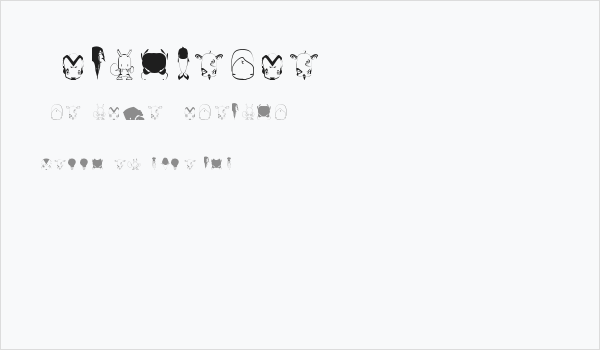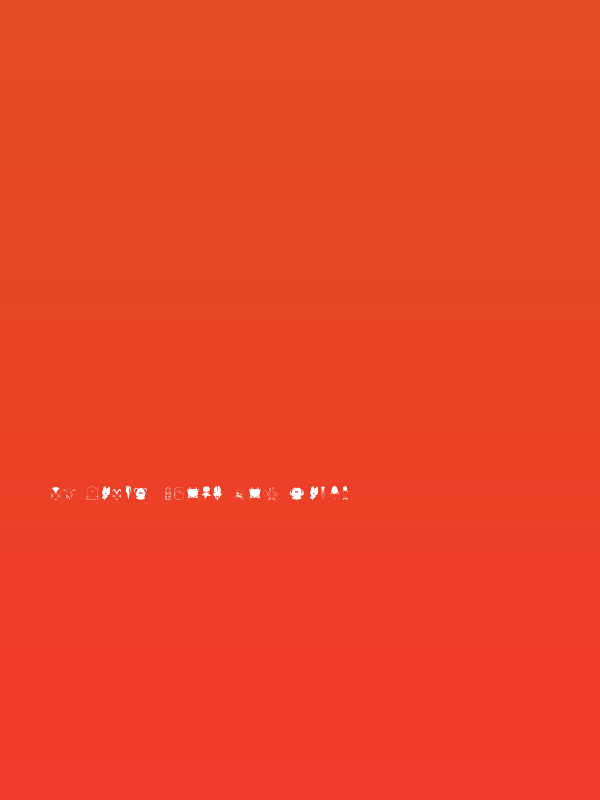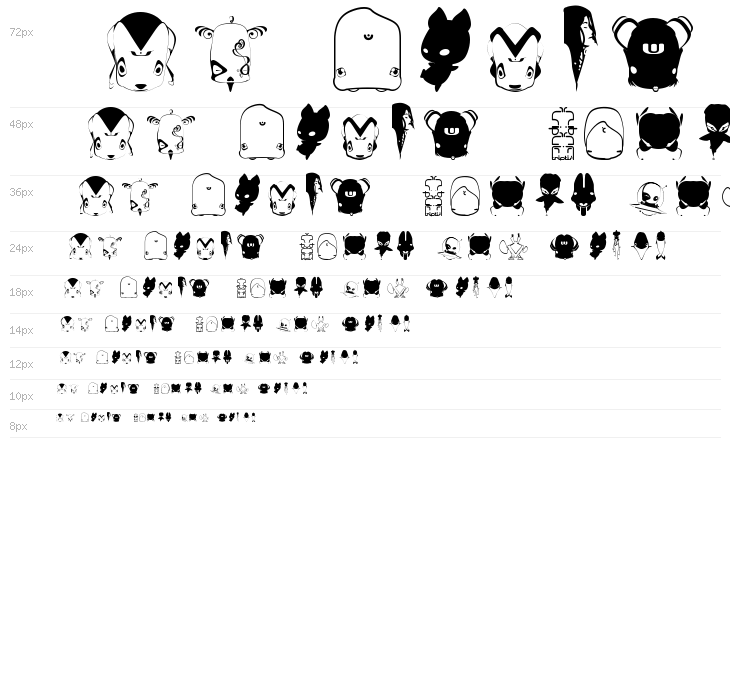
Pictoserie 1 Font
Pictoserie 1 Description
A highly decorative and playful font where each character is represented by a unique cartoon or mascot-like illustration, making letterforms abstract and whimsical. The style is bold and imaginative, with heavy use of black and white contrast and minimal traditional typographic structure.
| Overall Style | Decorative, Playful, Whimsical |
| Use Case | Logos, Posters, Children's materials, Headlines |
| Proposed Projects | Children's books, party invitations, playful branding, posters, creative projects. |